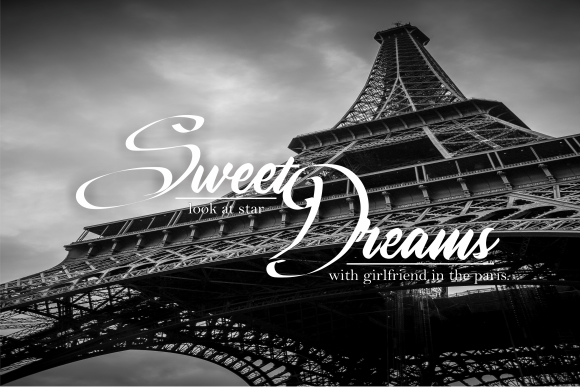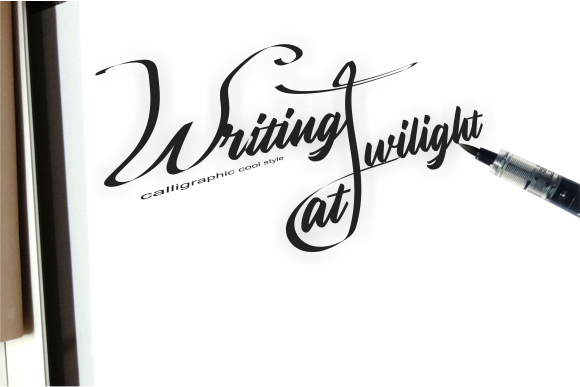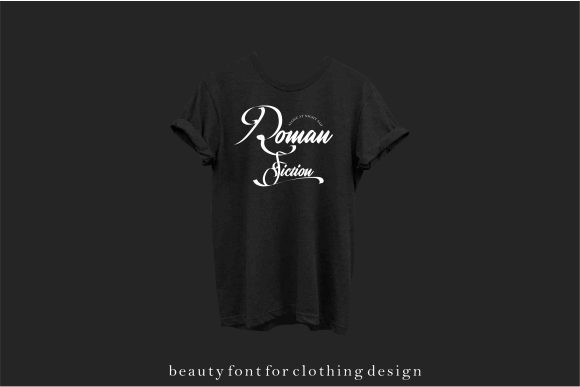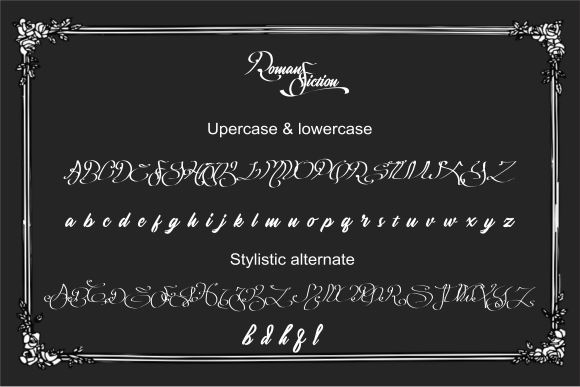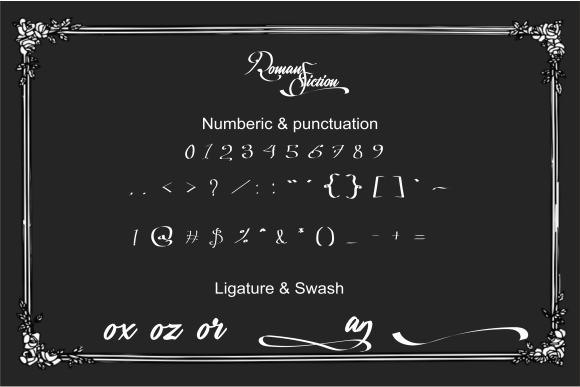
Introduction to Roman Fiction Font
As a designer, there’s nothing quite like the rush of creativity that comes with bringing a new project to life. You’ve poured over inspiration boards, sketched out ideas, and finally, it’s time to bring your vision into focus. The right font can make all the difference, elevating your design from mere mortal to masterpiece. And that’s exactly what the Roman Fiction Font is designed to do.
With its elegant script style and timeless classic calligraphy, the Roman Fiction Font is the perfect addition to any creative project. Its balanced and varied form ensures that it’s never too thin or too thick, making it a versatile choice for designers who demand high-quality results. Plus, with PUA encoding, accessing all of the glyphs and swashes is a breeze, giving you the freedom to get creative with your design.
Key Features of Roman Fiction Font
- High-quality design resource ideal for creative projects, offering a unique and classic look.
- Features a transparent background, allowing for easy customization and layering in creative projects.
- Perfect for designers working on book covers, posters, and other print materials, thanks to its elegant and sophisticated design.
- Includes a range of characters and glyphs, making it suitable for both Latin and Cyrillic languages.
Honest Review: Roman Fiction Font
- ✨ High-quality font with a classic, timeless feel that’s perfect for historical or literary-themed creative projects.
- ✨ Transparent background, making it easy to combine with other design elements.
- ✨ Versatile font that can be used for both print and digital applications.
- ⚠️ Limited character set, which may not be ideal for projects requiring extensive text.
- ⚠️ Some characters may not render correctly in certain font sizes or styles.
Overall, the Roman Fiction Font is a solid choice for designers looking for a high-quality, free font. While it may have some limitations, its classic feel and transparent background make it a great addition to any creative project.
Roman Fiction Font
The Roman Fiction Font is a high-quality design resource perfect for various creative projects. It can be easily downloaded and used in various design software.
For the best results, use the Roman Fiction Font on a transparent background to make it stand out. Experiment with different font sizes and styles to add depth to your design.
The Roman Fiction Font is perfect for book covers, movie posters, and other creative projects that require a classic and sophisticated look. Its high-quality design and transparent background make it a valuable resource for designers and creatives.